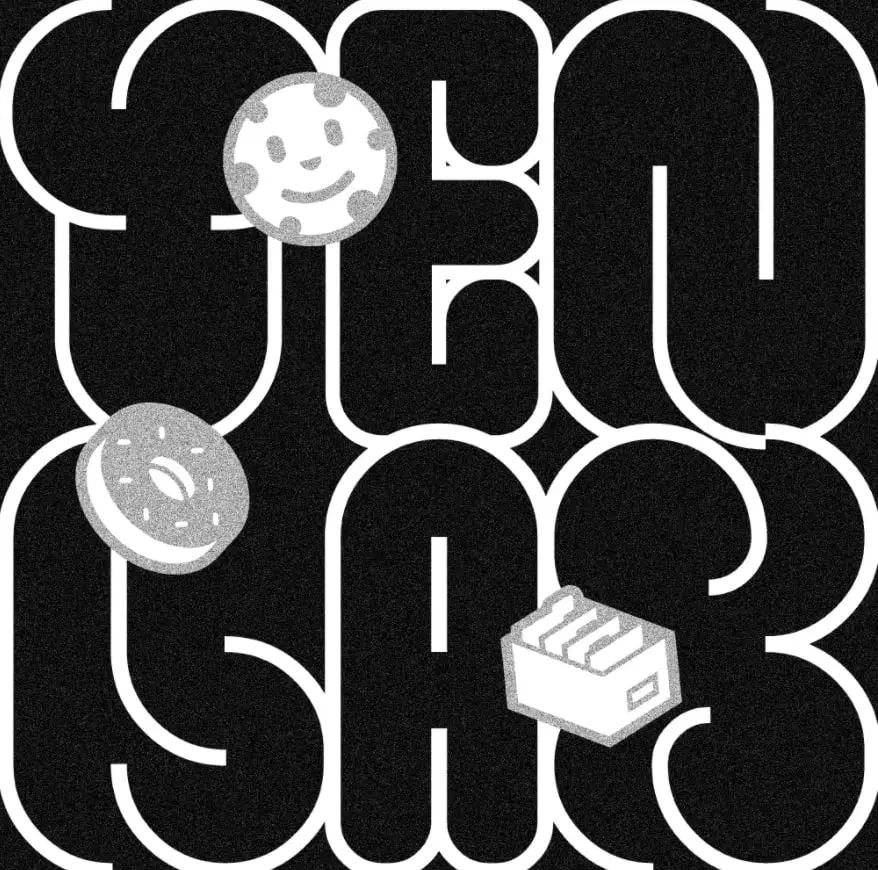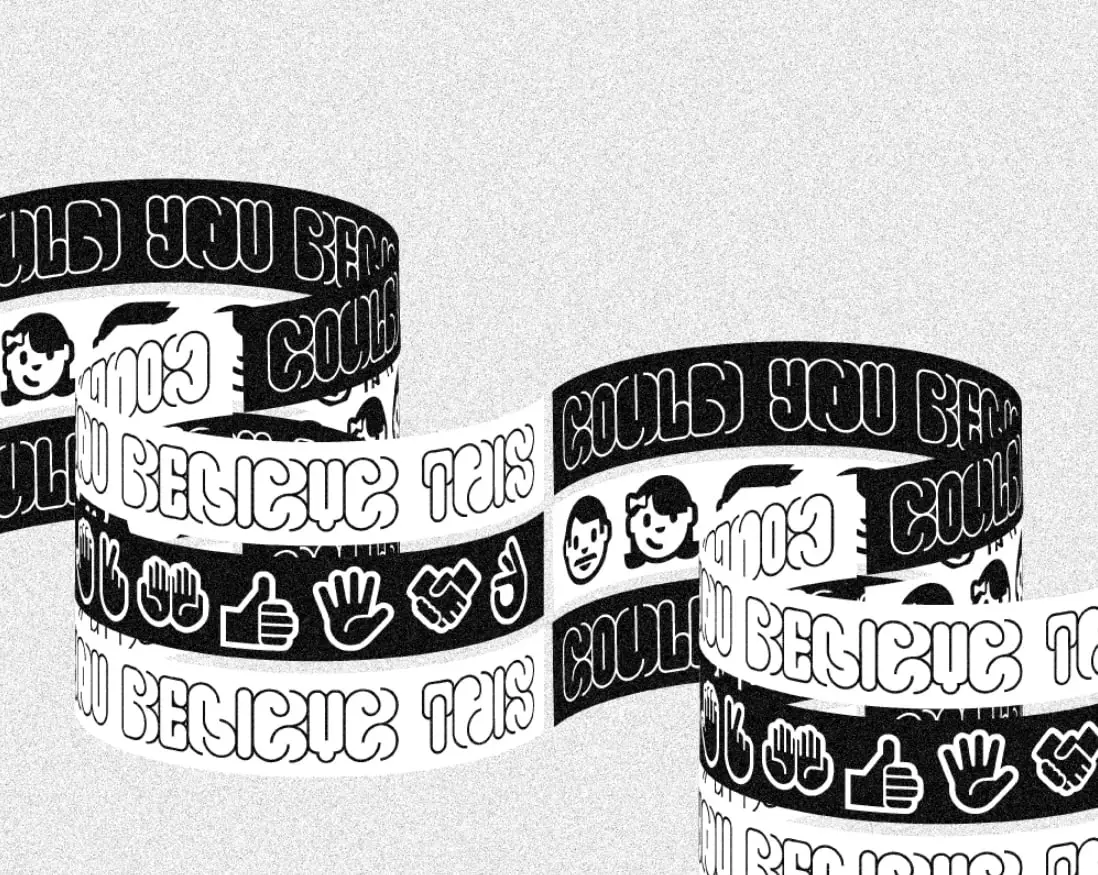
Mx Wasgard — Graffiti-Inspired Typeface
Introducing Mx Wasgard, a graffiti-inspired typeface that captures the essence of urban art and street culture. This unique font features bold, expressive letterforms that are perfect for making a statement in any design project.
• Stylish graffiti-inspired design
• Uppercase and lowercase letters included
• Supports a wide range of languages
• Great for web design and digital art projects
• Use in print media for eye-catching headlines and posters